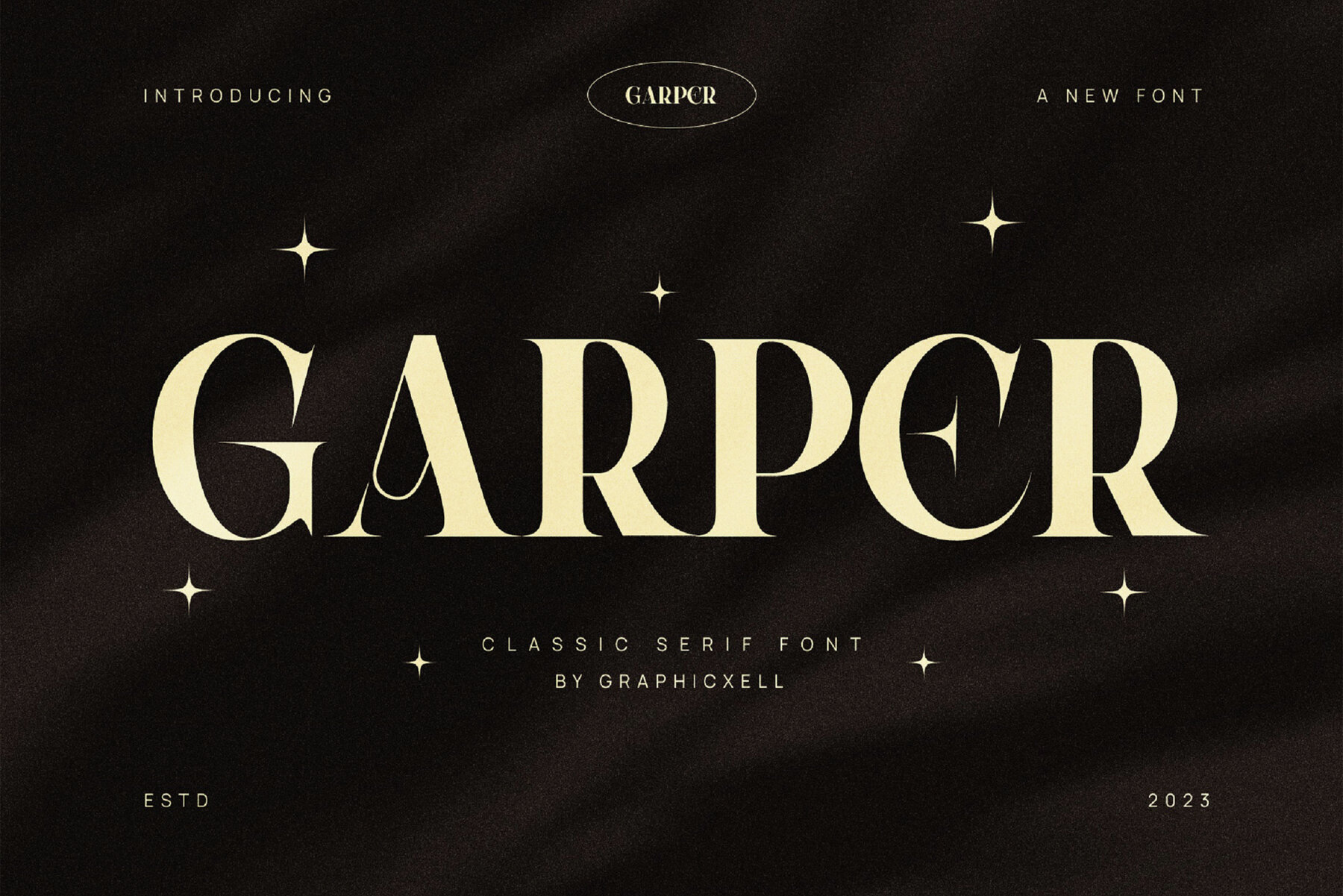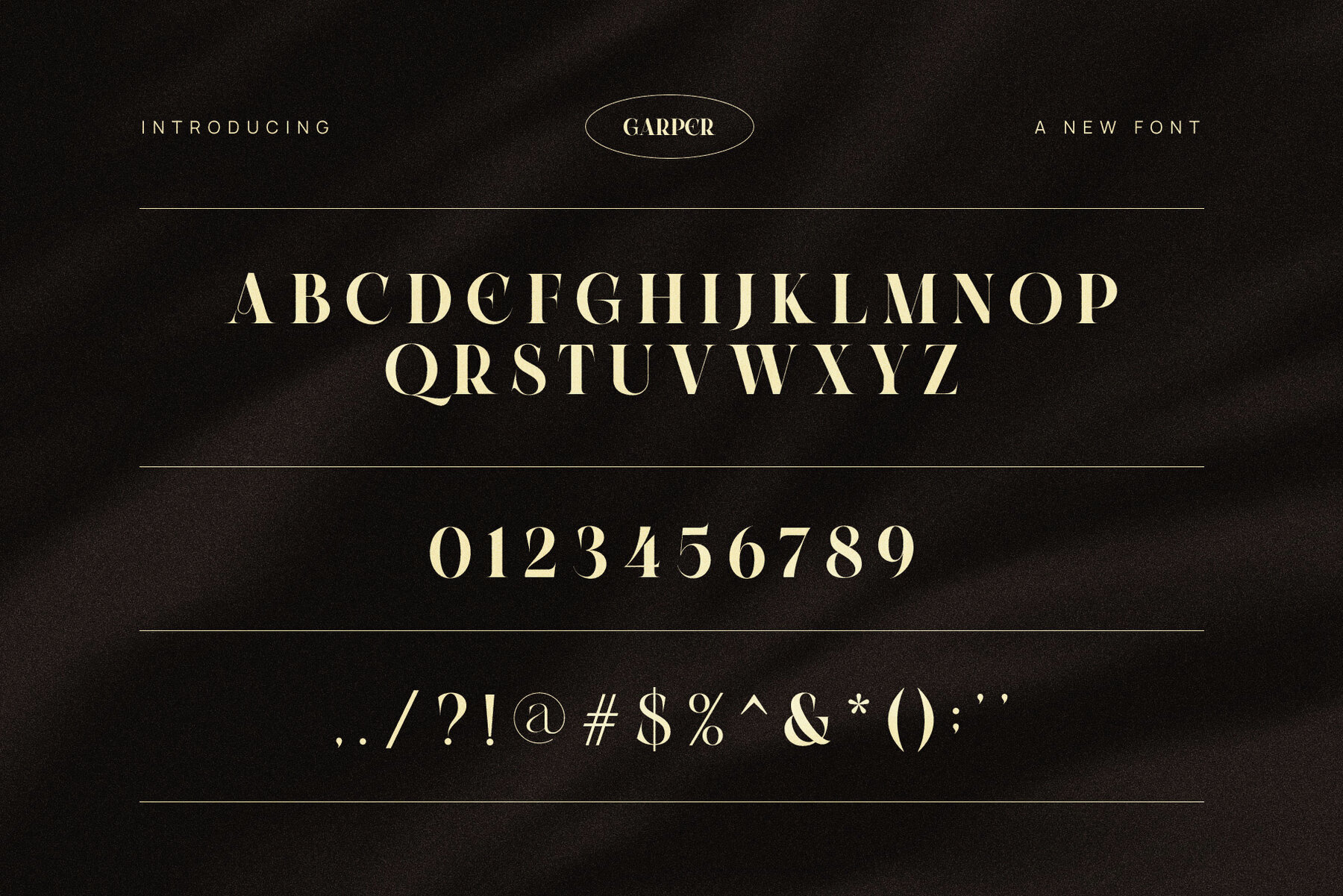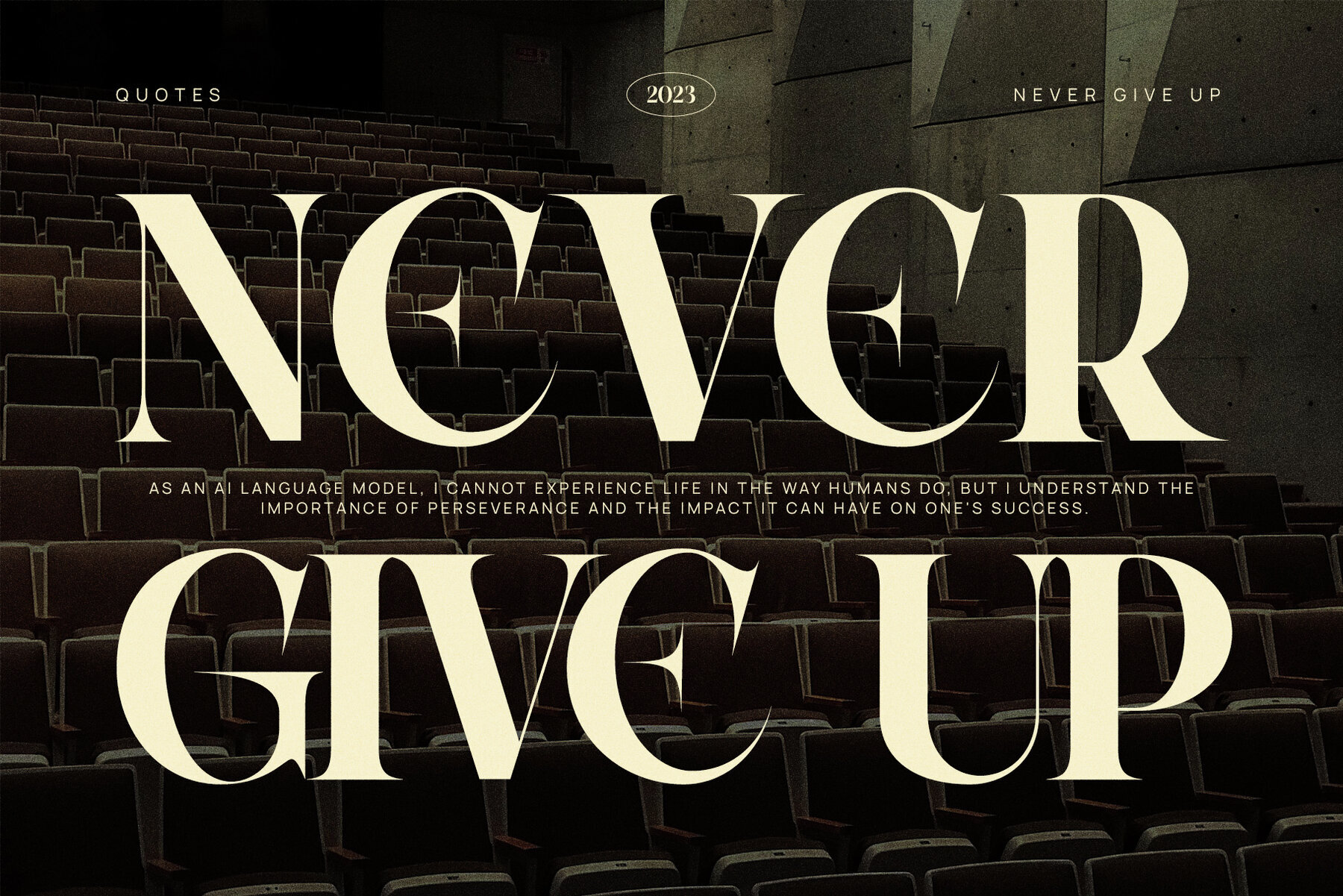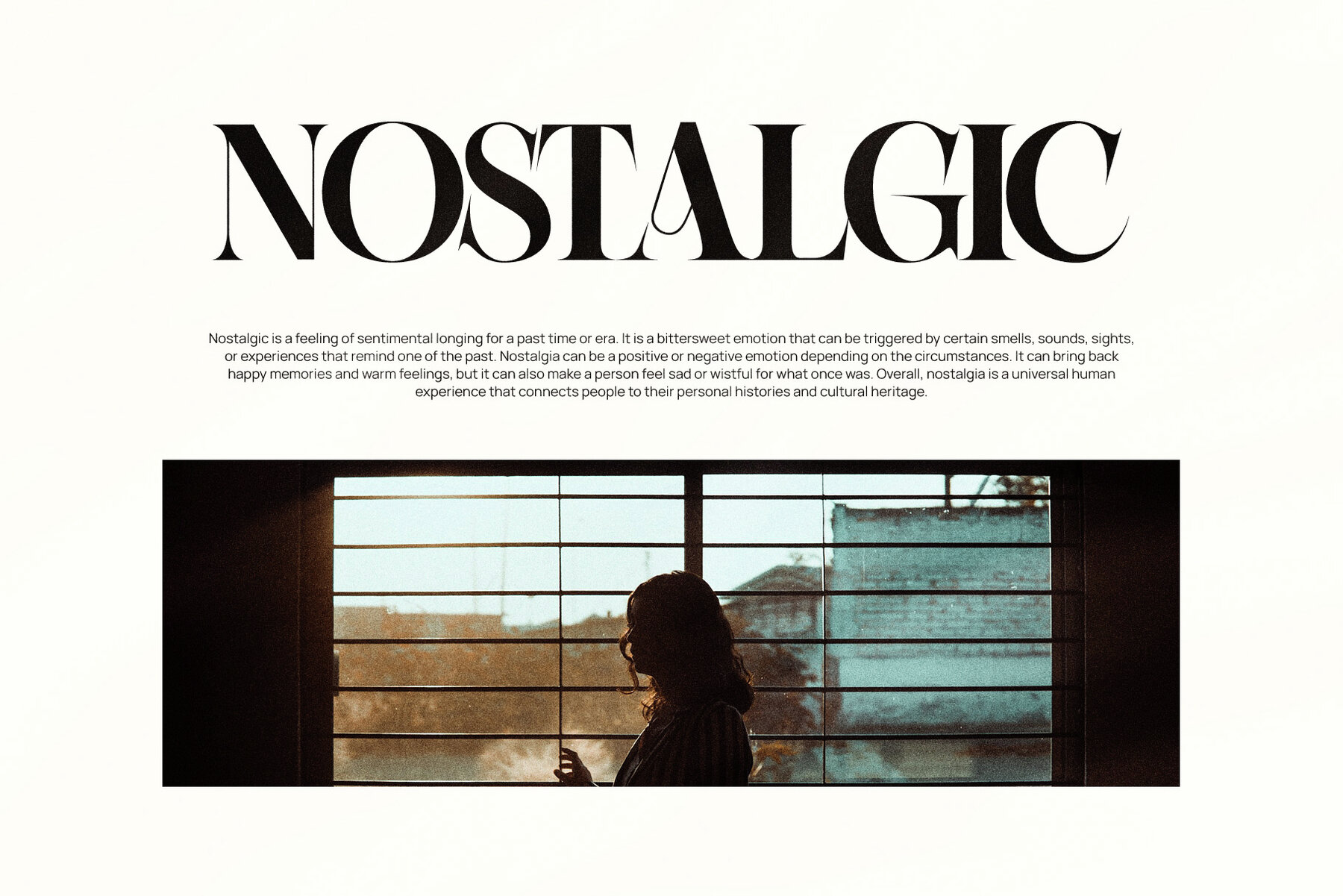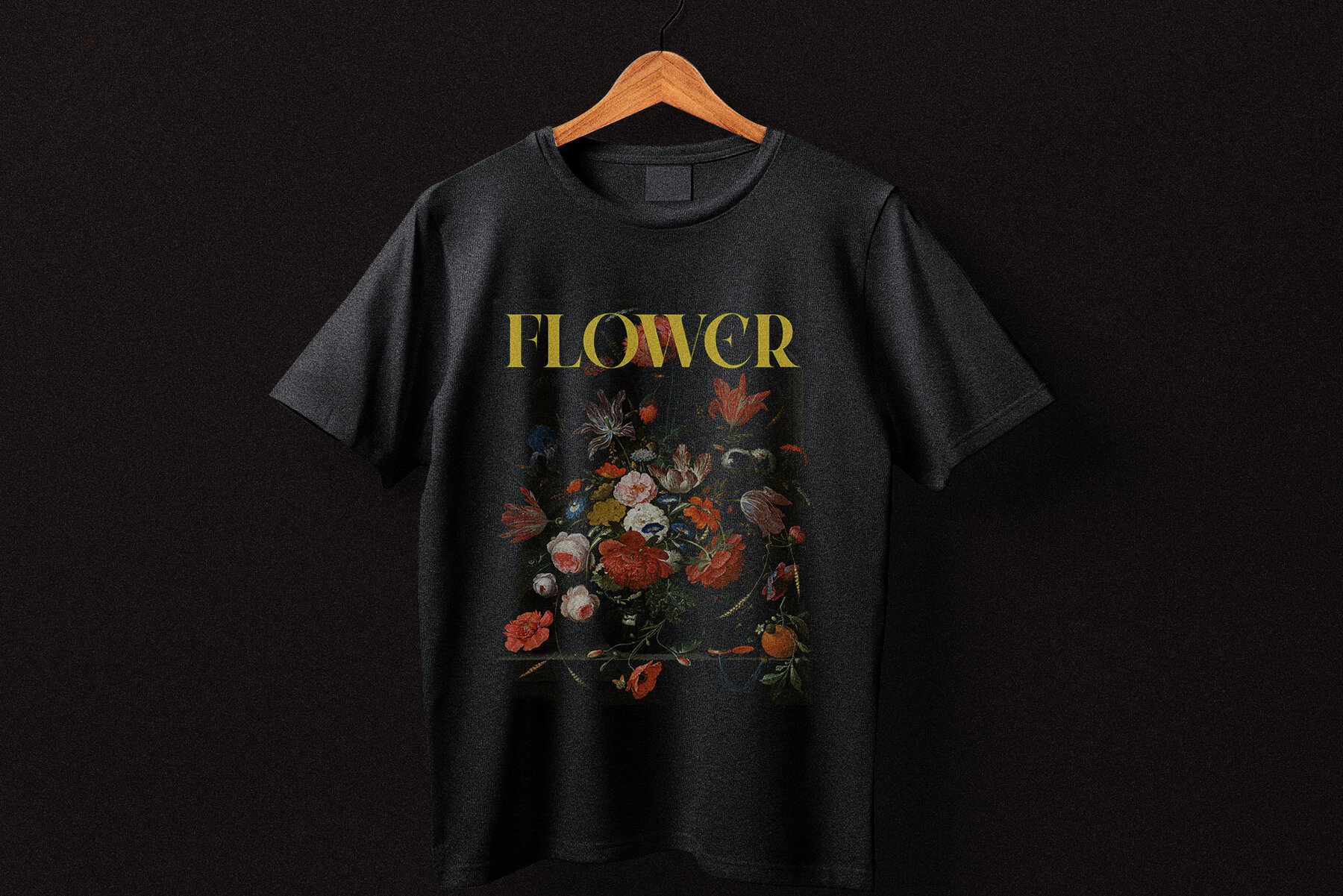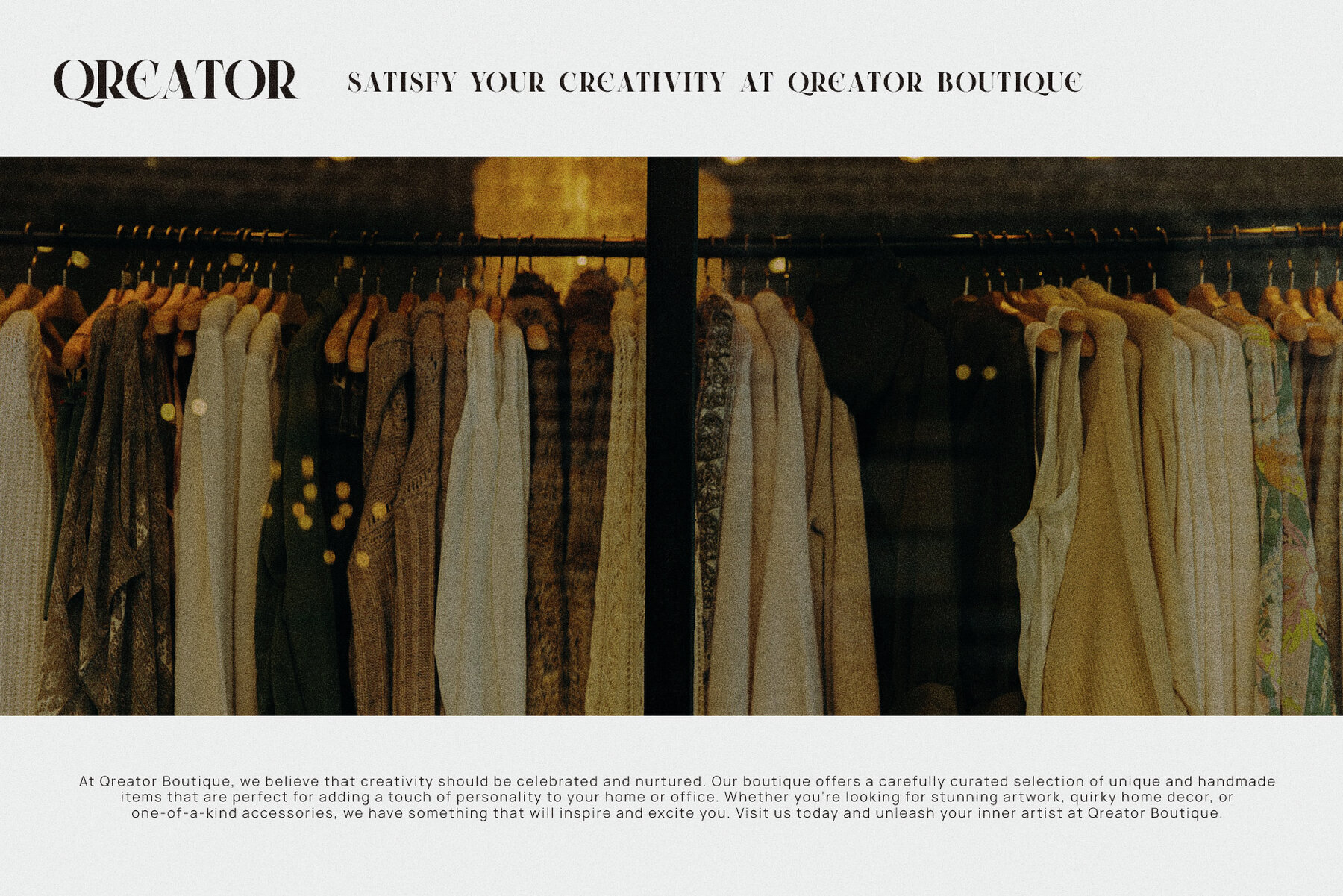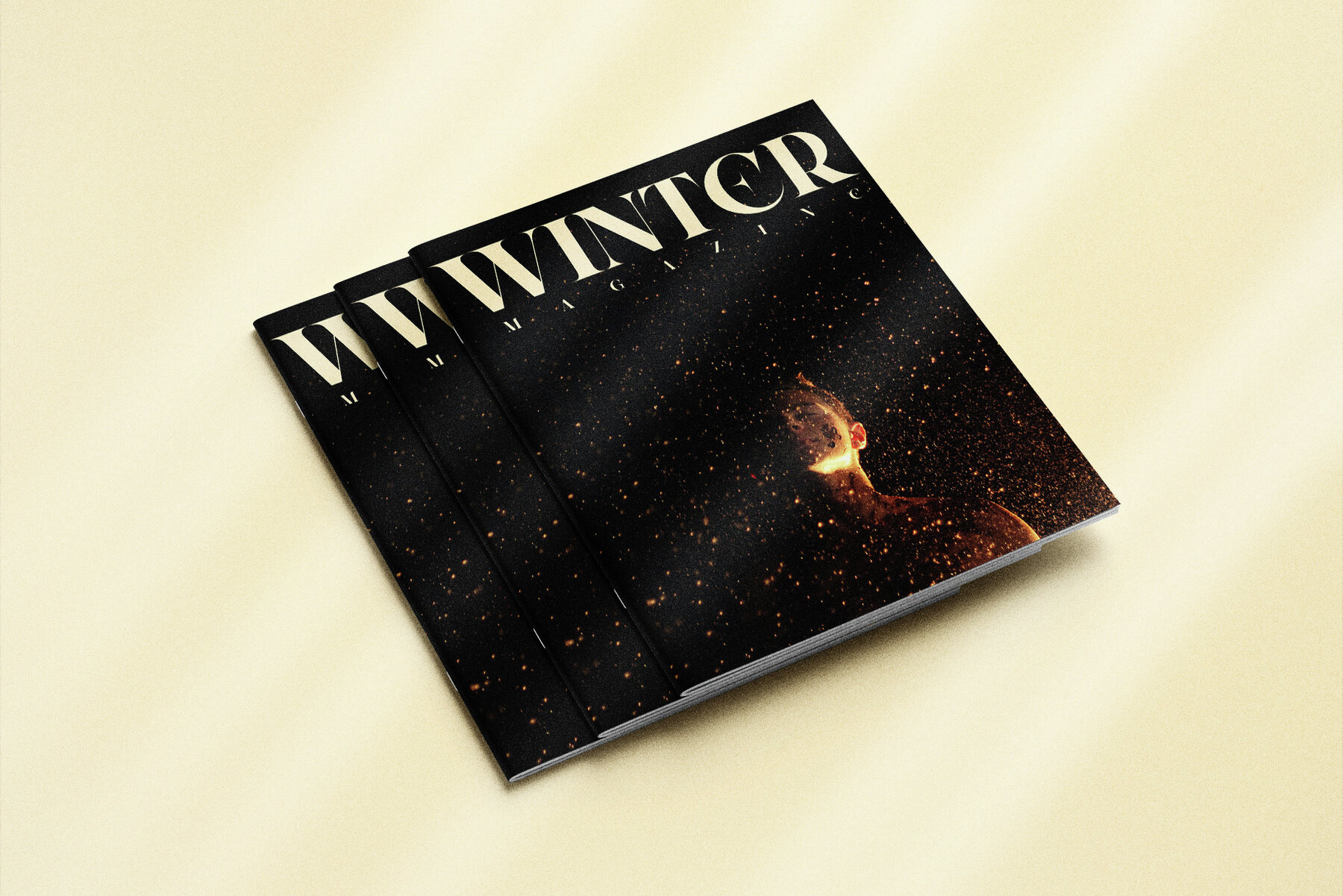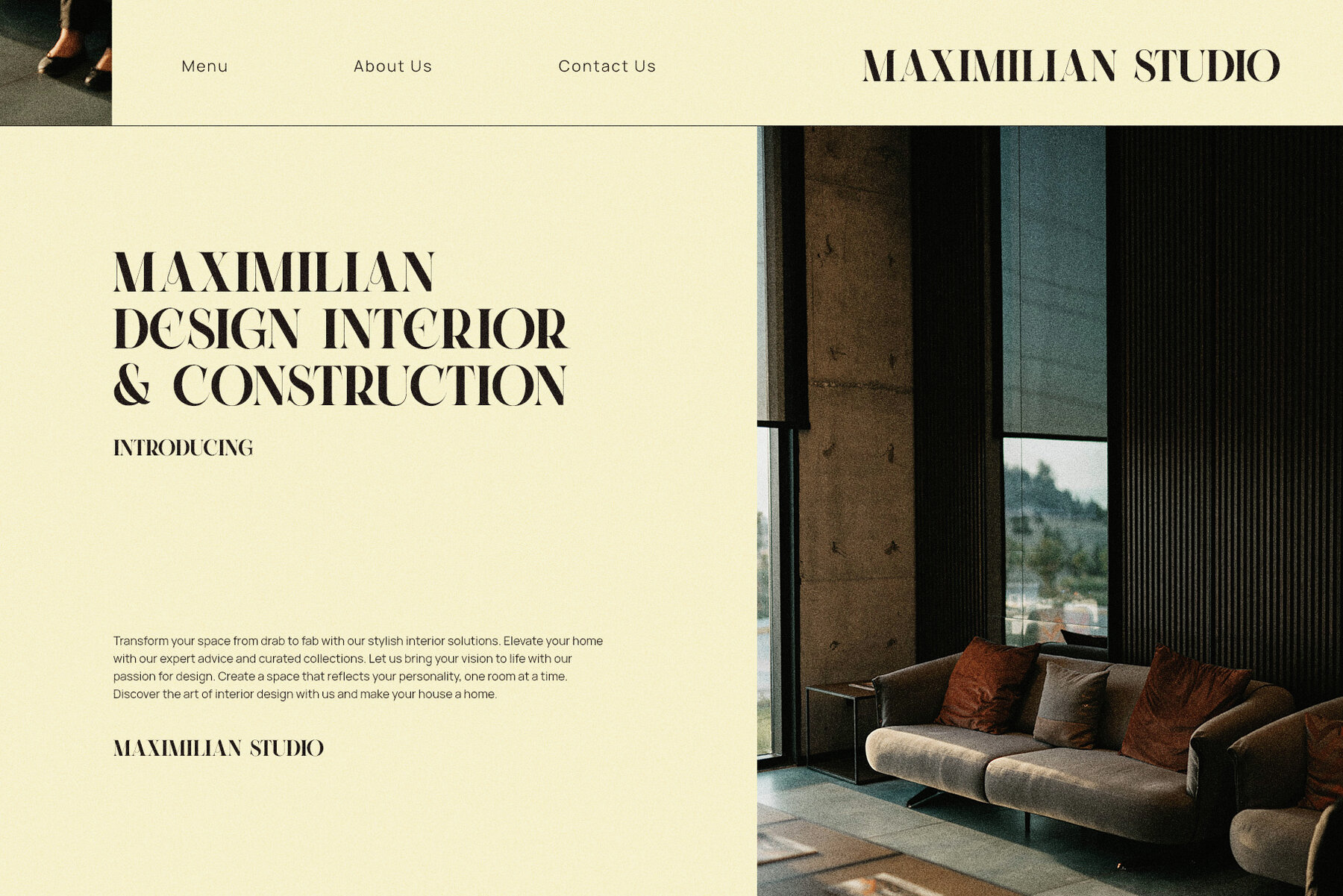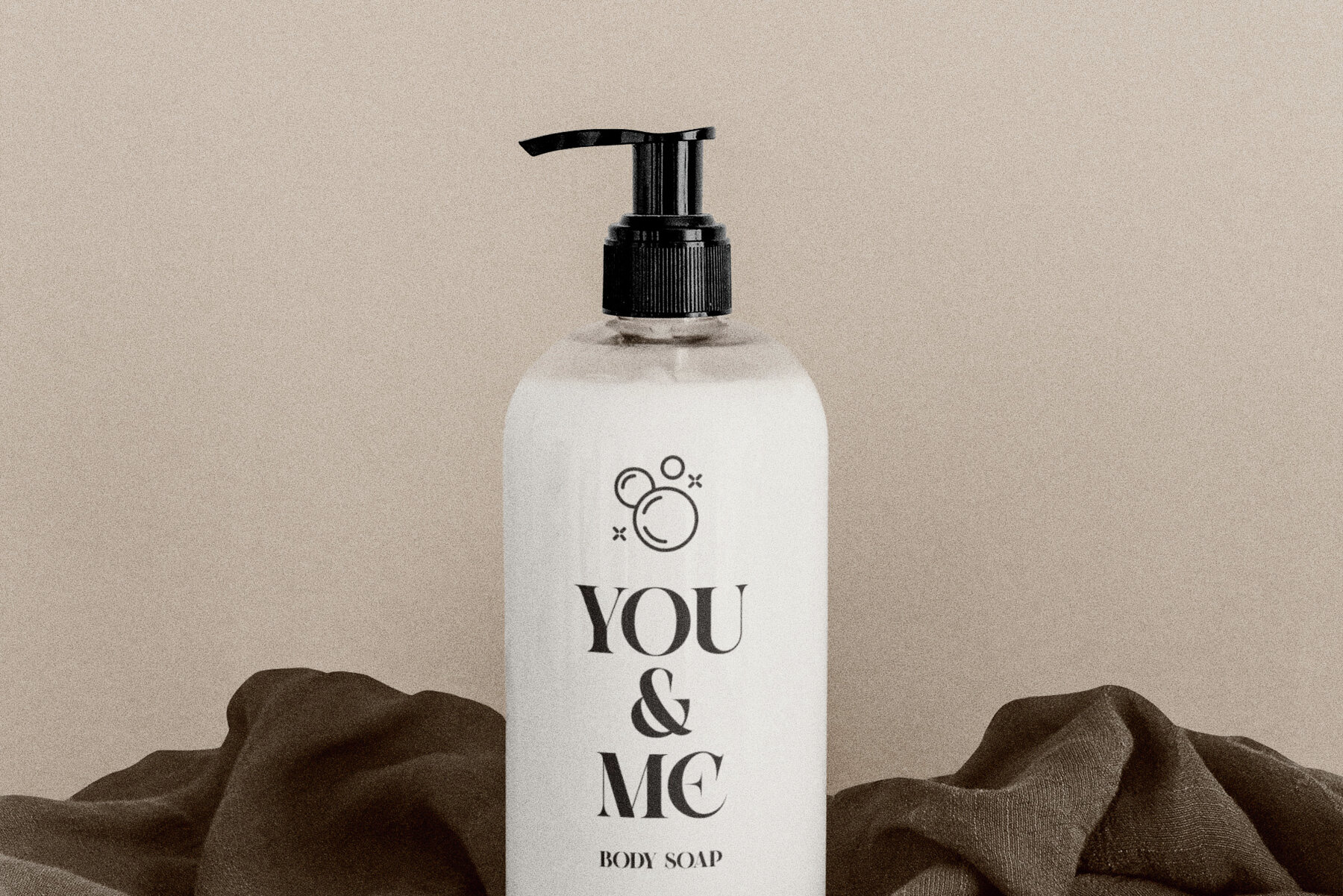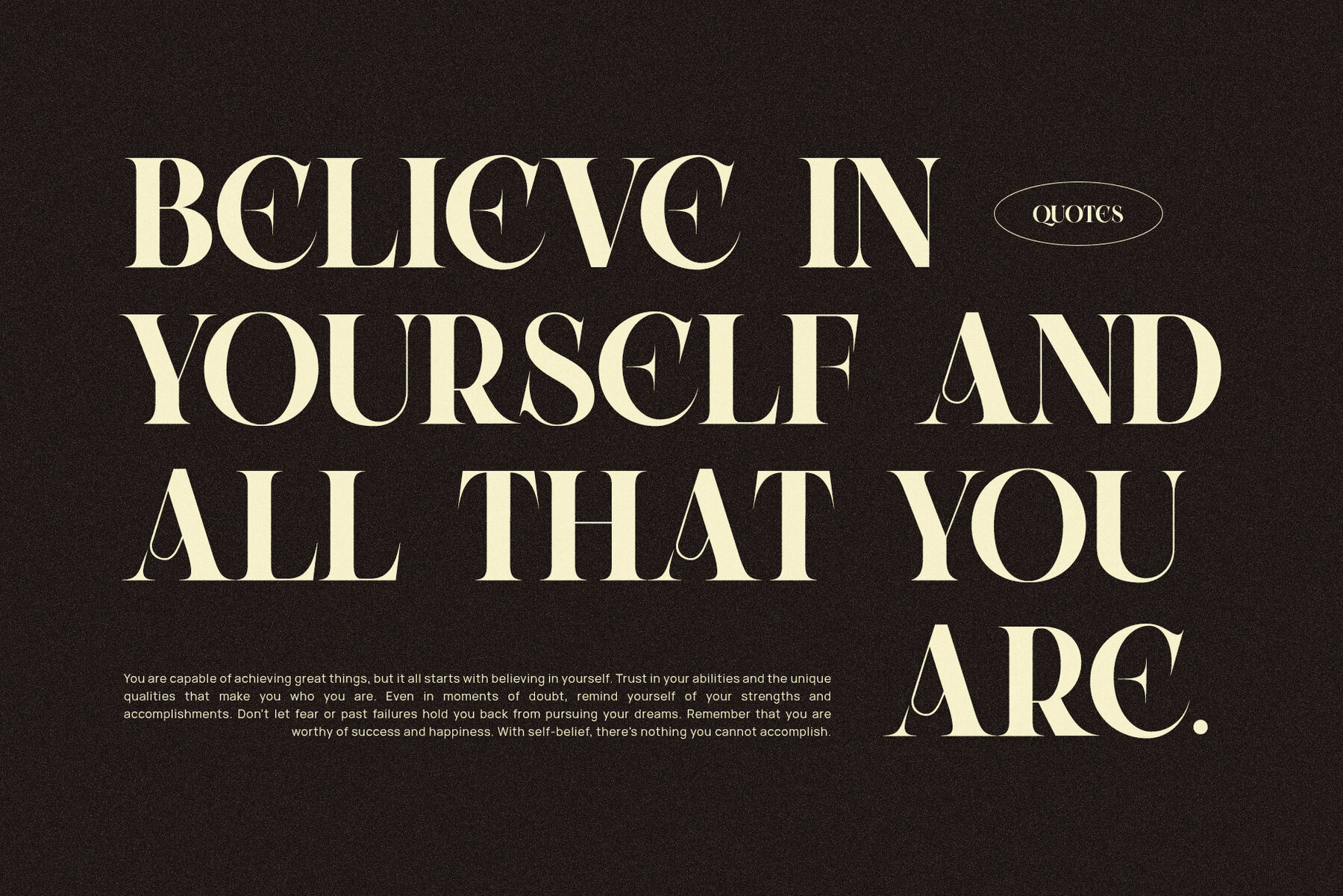
Garper Font
Garper Regular
Garper offers a distinctive and sophisticated appearance, making it an ideal choice for branding and logo design. This elegant serif typeface combines classic elements with a modern twist, perfectly suited for various projects including logos, wedding invitations, social media posts, and more. Designed with a high level of readability, Garper ensures that your designs are both beautiful and effective. For optimal results, it is recommended to use Garper with Adobe Illustrator or Adobe Photoshop. Should you have any questions, feel free to reach out for assistance.Garper: Elegant Serif Font for Branding